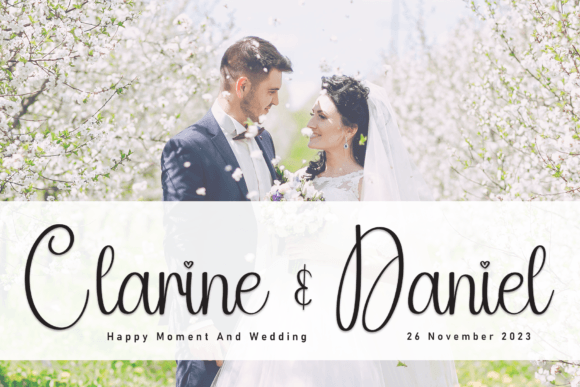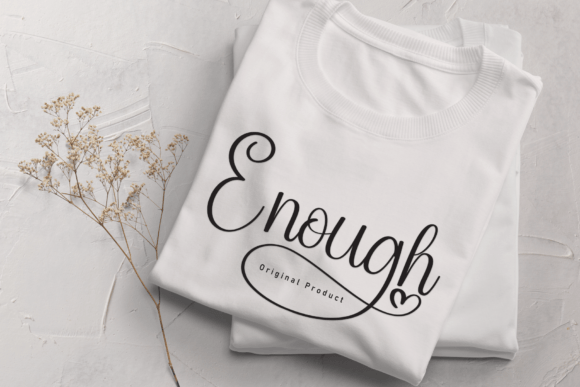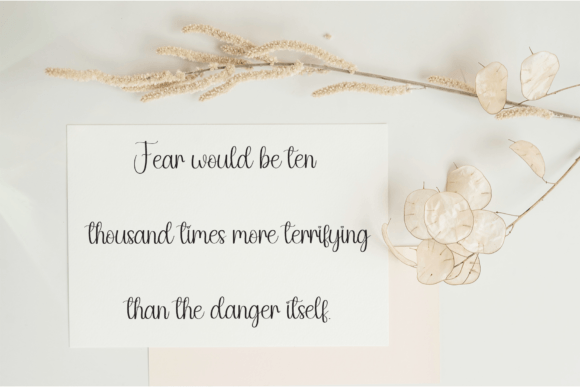
Introduction to Santa Courage Font
Have you ever stumbled upon a font that sparks joy and makes you want to create something special? That’s exactly what happened to many designers when they discovered the Santa Courage Font. This delightful handwritten display font is perfect for adding a touch of whimsy to your creative projects.
Whether you’re working on a wedding invitation, a holiday card, or any other design that needs a fun and festive vibe, the Santa Courage Font is an excellent choice. Its cute and friendly style is sure to bring a smile to your face and inspire your creativity. As a valuable design resource, this font offers a high-quality solution for designers looking to add a personal touch to their work.
Key Features of Santa Courage Font
- High-quality design resource for creative projects, ideal for festive and holiday-themed designs.
- Features a transparent background, allowing for easy layering and customization.
- Unique, bold, and playful style, perfect for adding a touch of whimsy to designs.
Honest Review: Santa Courage Font
I recently came across the Santa Courage Font and I must say, it’s a gem for designers. This font is perfect for adding a touch of whimsy to any creative project. The font’s playful, bold design makes it an excellent choice for headings and titles.
One of the standout features of the Santa Courage Font is its high quality. The font is crisp and clear, making it ideal for digital designs. The transparent background is also a plus, as it allows for seamless integration into various design elements.
Here are some of the things that work well:
- ✨ Playful and bold design
- ✨ High-quality font
- ✨ Transparent background
- ⚠️ Limited font sizes available
- ⚠️ May not be suitable for formal or professional designs
Overall, I’m impressed with the Santa Courage Font. It’s a great design resource for designers looking to add some personality to their work. While it may not be perfect, it’s definitely worth considering for your next creative project.
Santa Courage Font
The Santa Courage Font is perfect for creating a festive and bold design. You can use it in holiday-themed posters, greeting cards, and social media graphics. The font’s transparent background makes it easy to layer over other design elements.
To get the most out of the Santa Courage Font, use it in conjunction with other design resources such as graphics and illustrations. You can also experiment with different font sizes, colors, and styles to create a unique and eye-catching design. Additionally, make sure to save the font in high quality to ensure it looks great in all resolutions.
Can I use the Santa Courage Font with a transparent background?
Yes, the Santa Courage Font has a transparent background, making it ideal for use in design projects that require a clear or see-through effect. This feature allows designers to layer the font over other design elements, creating a unique and visually appealing effect.